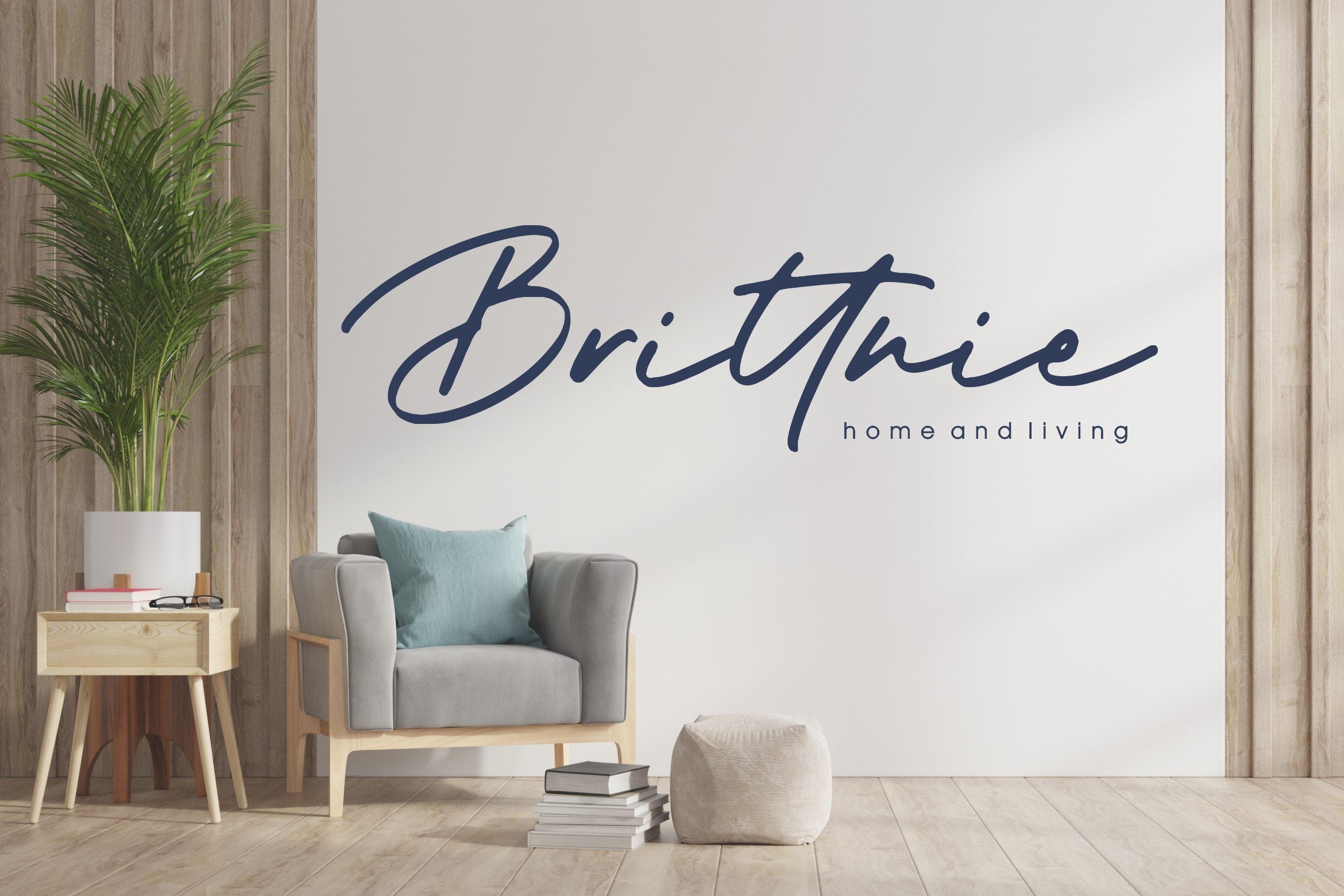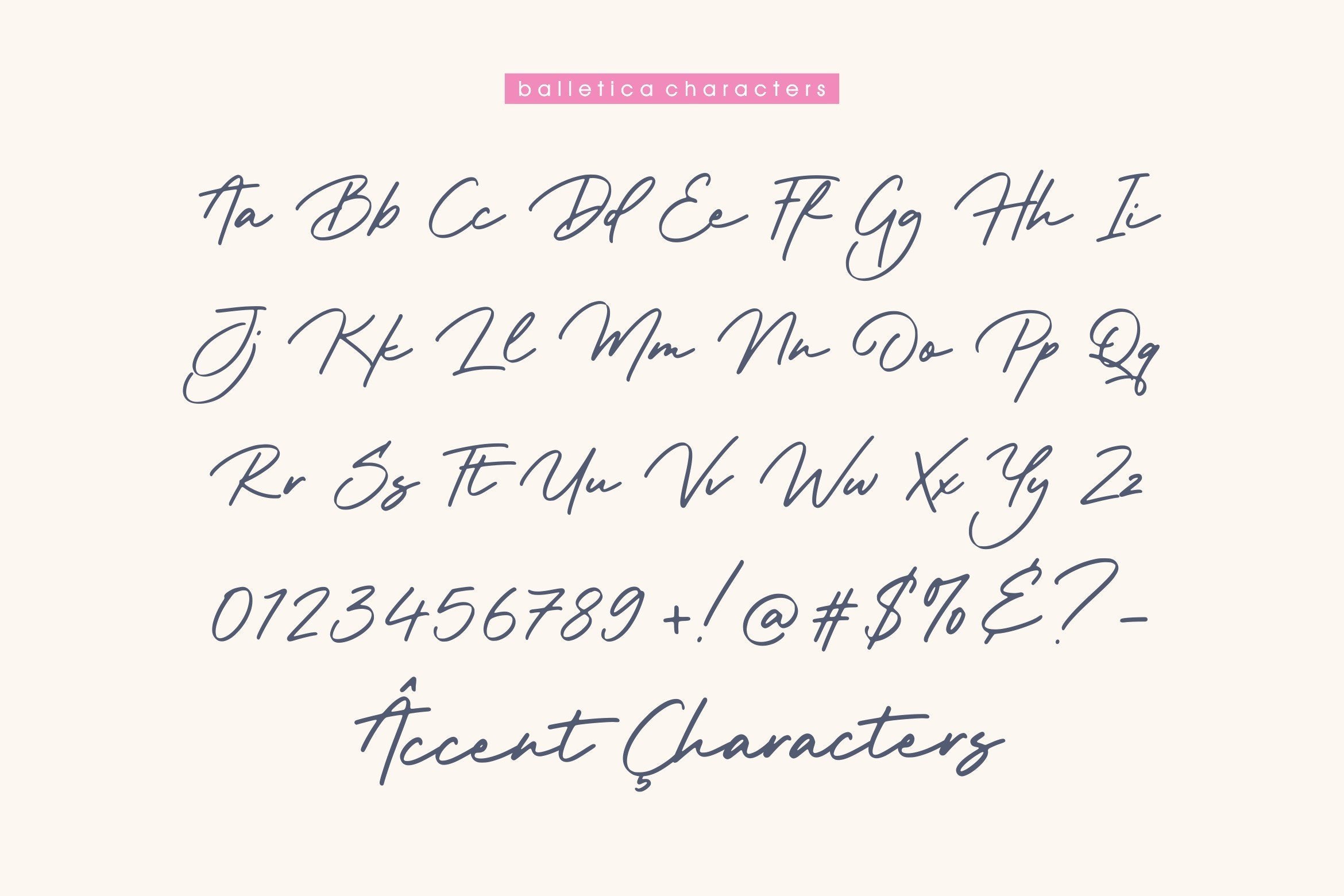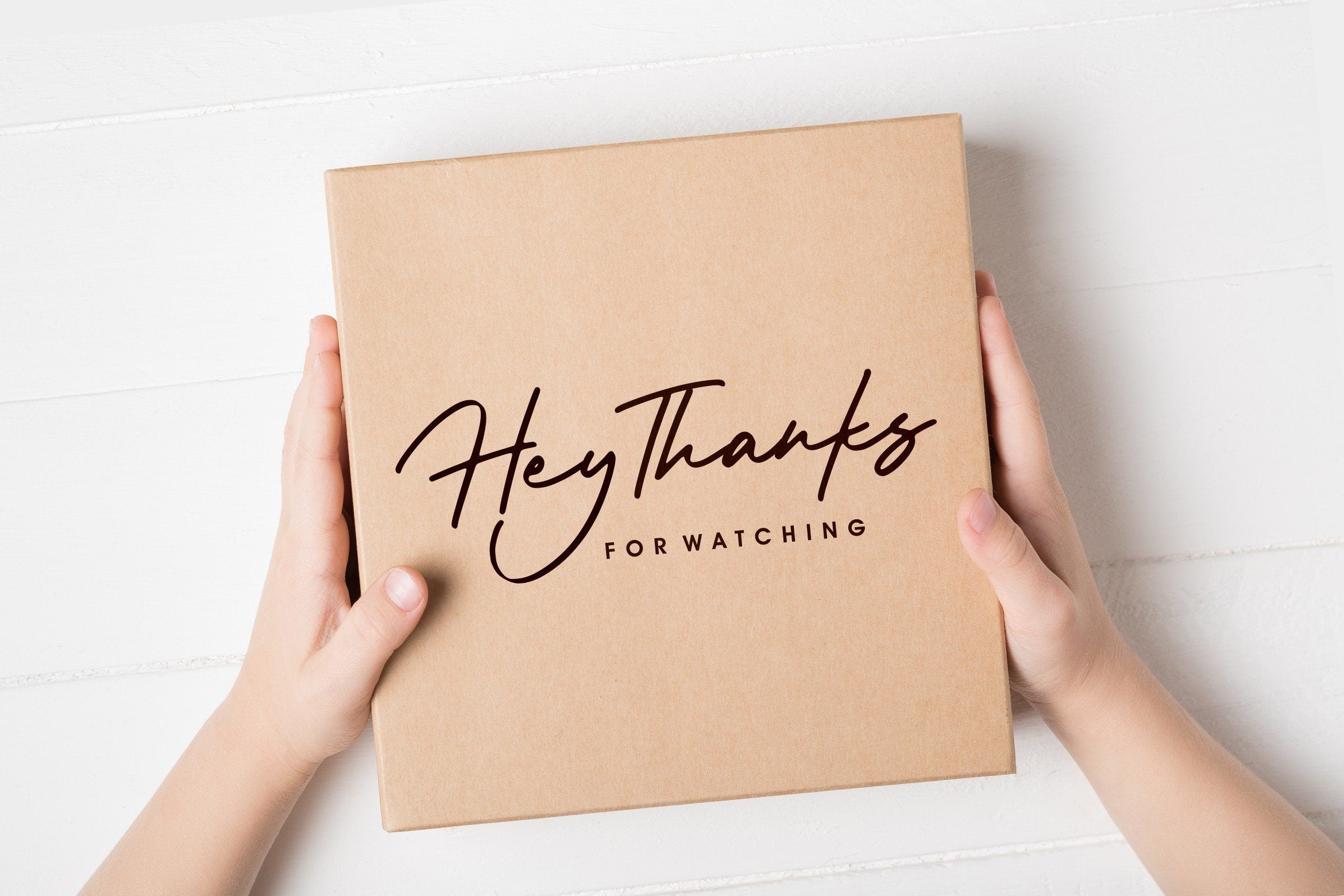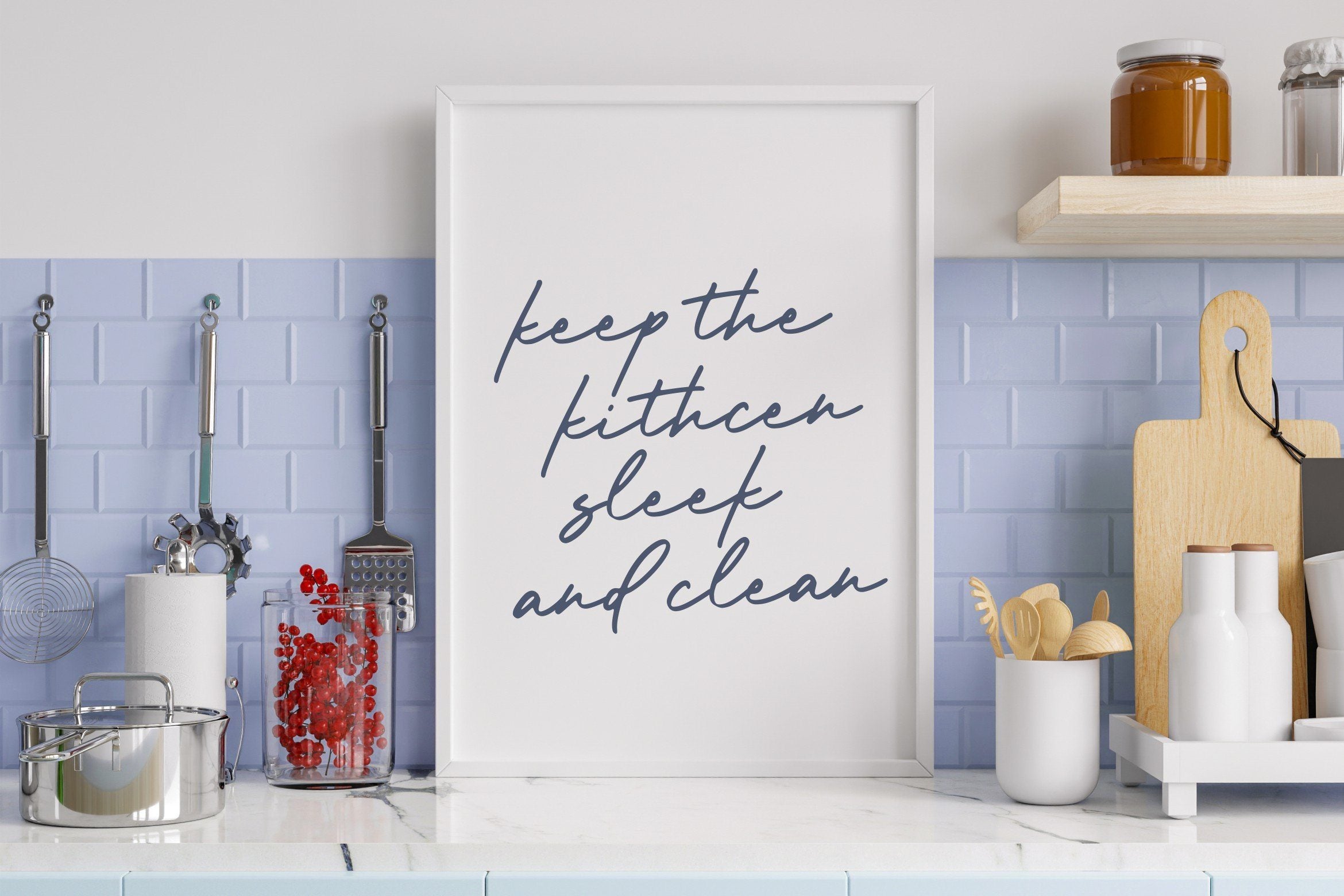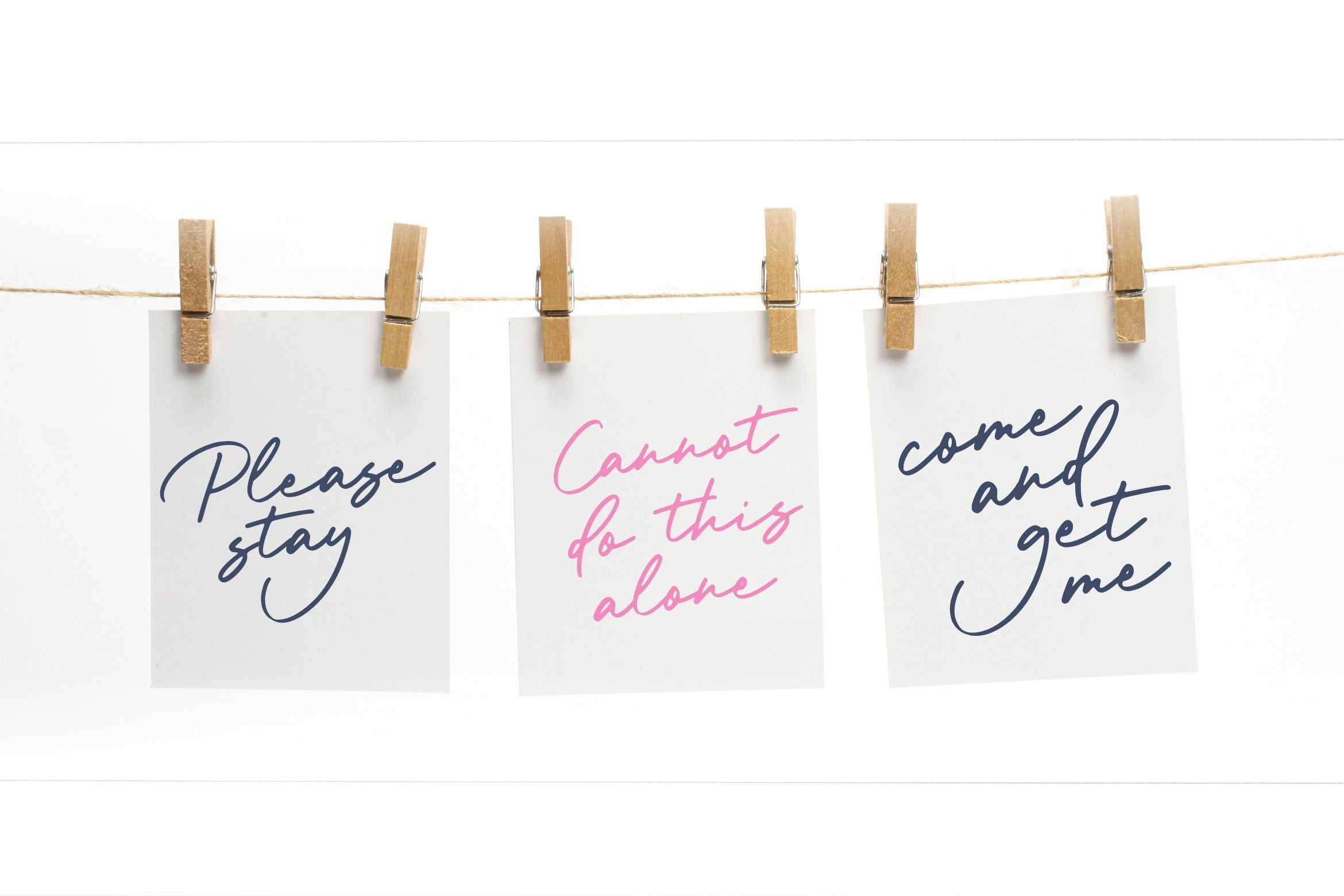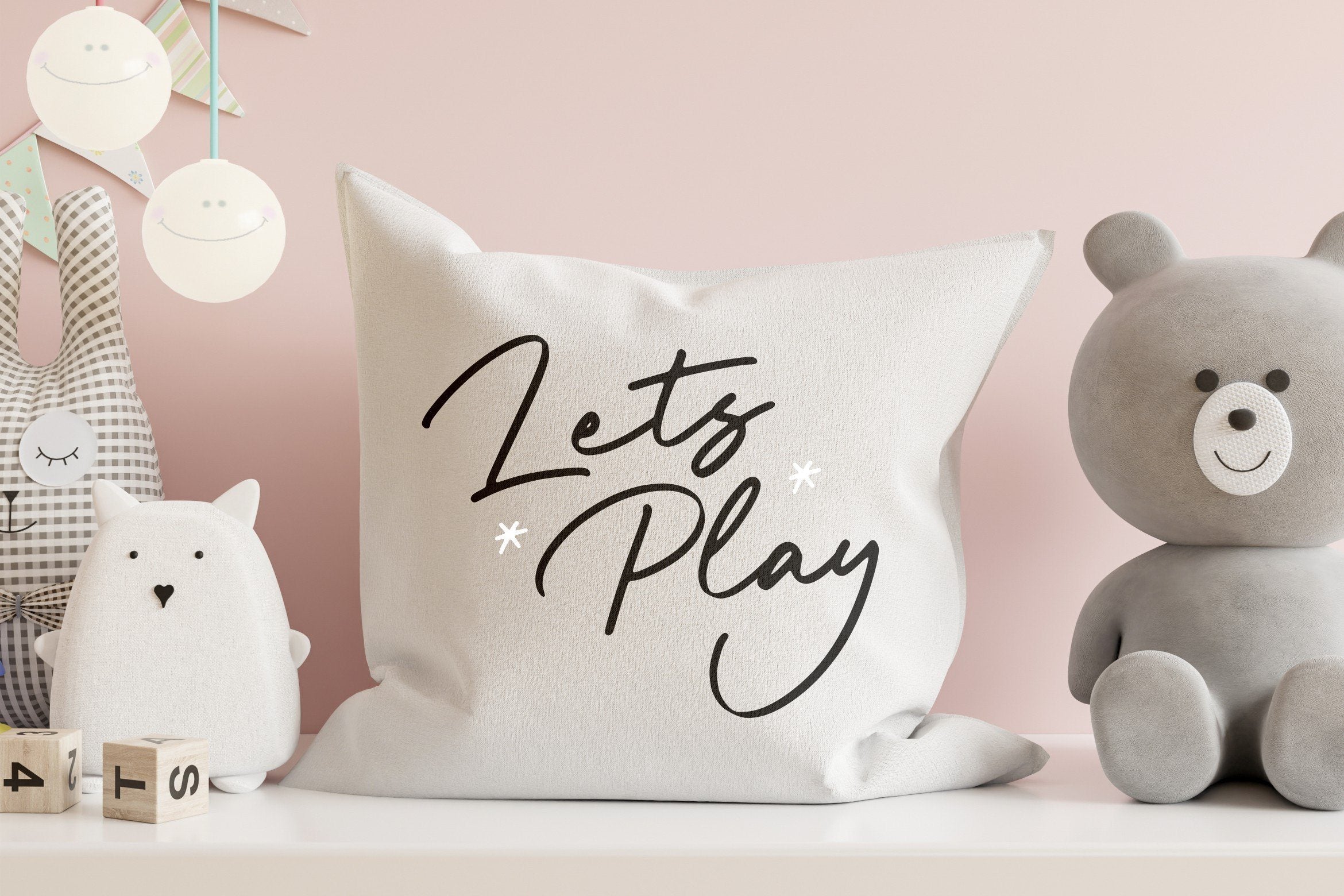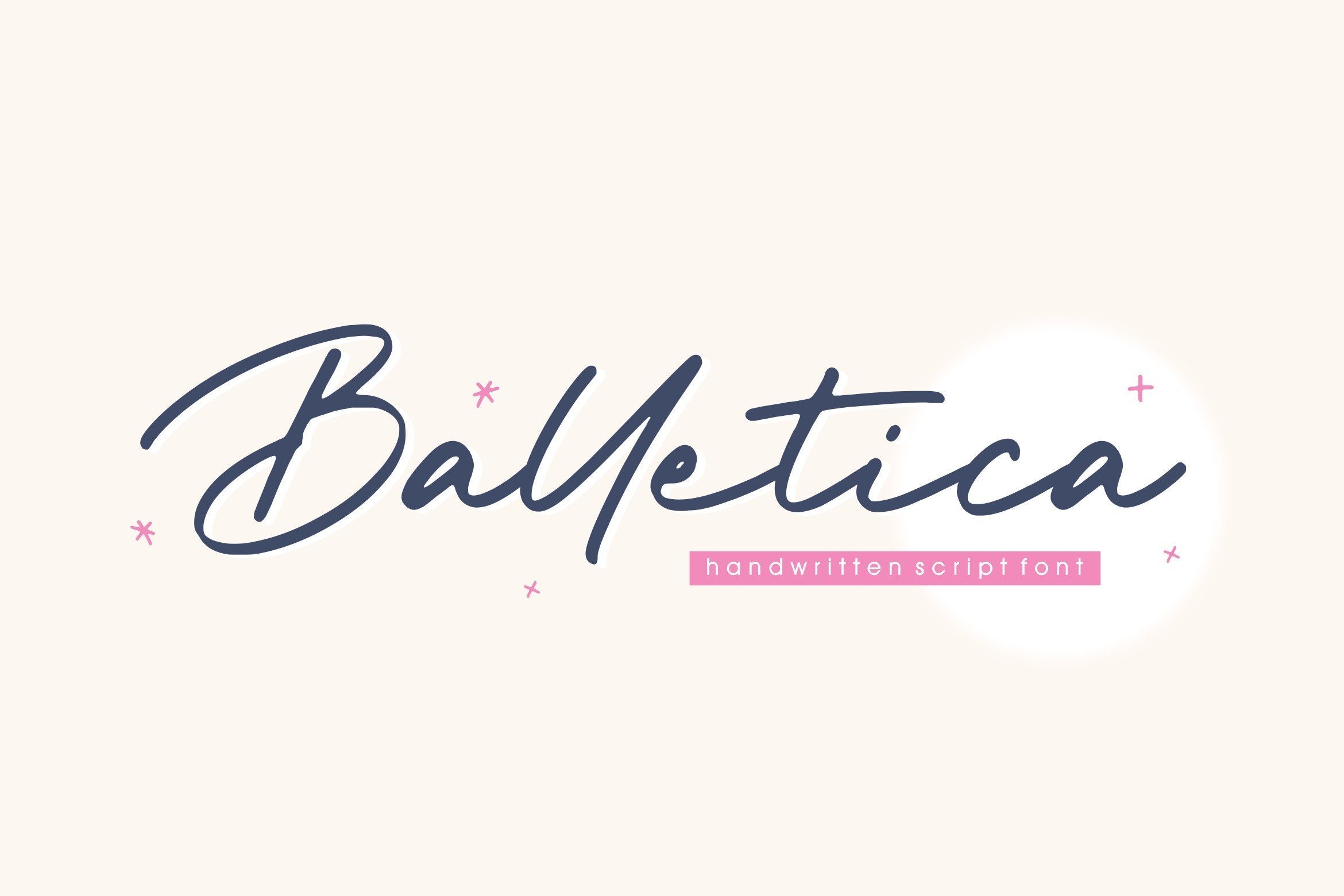
Balletica Handwritten Script Font
About Balletica Handwritten Script Font
Introducing by Balpirick Studio. Proudly Present, Balletica Font. Balletica is a Handwritten Script Font. Balletica Script is a chic, refined script font that emanates sophistication and elegance. Its stylish alternates and ligatures make this font the perfect match for any project. This font includes TTF, OTF and WOFF, Balletica also multilingual support. Enjoy the font, feel free to comment or feedback, send me PM or email. Thank you!